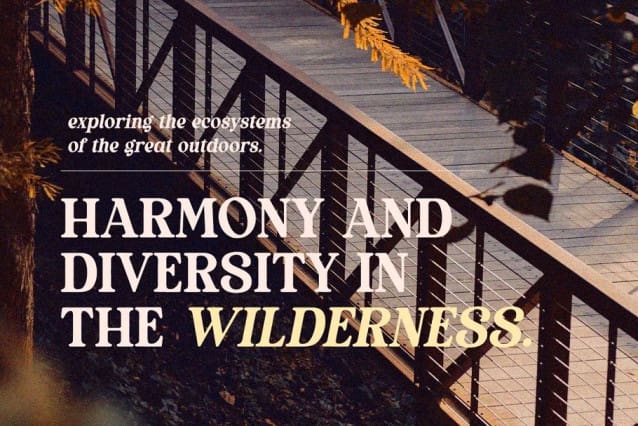
Thrive Woods Font
Thrive Woods Font is a organic serif with stylish looks. This font perfectly made to be applied especially in logo, and the other various formal forms such as invitations, labels, logos, magazines, books, greeting / wedding cards, packaging, fashion, make up, stationery, novels, labels or any type of advertising purpose.